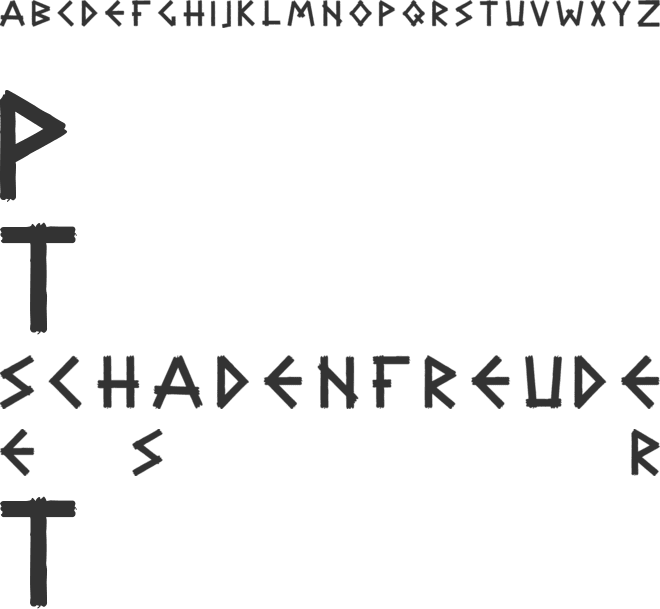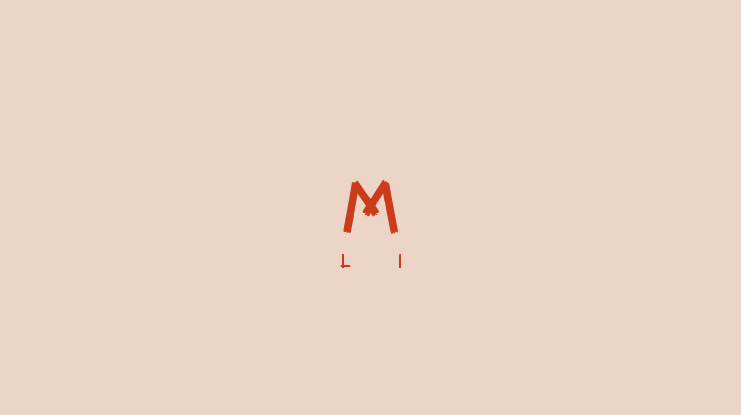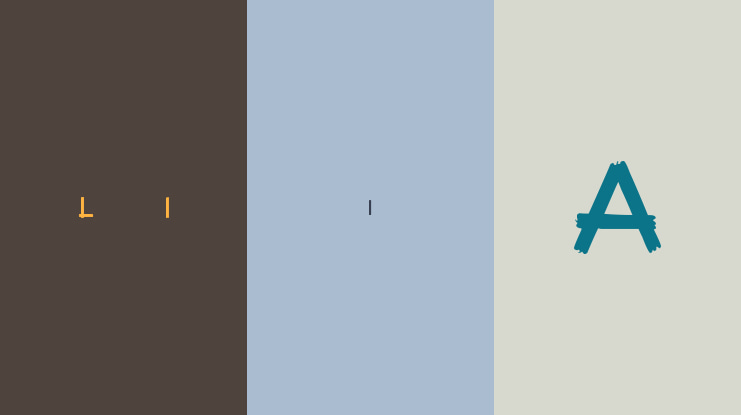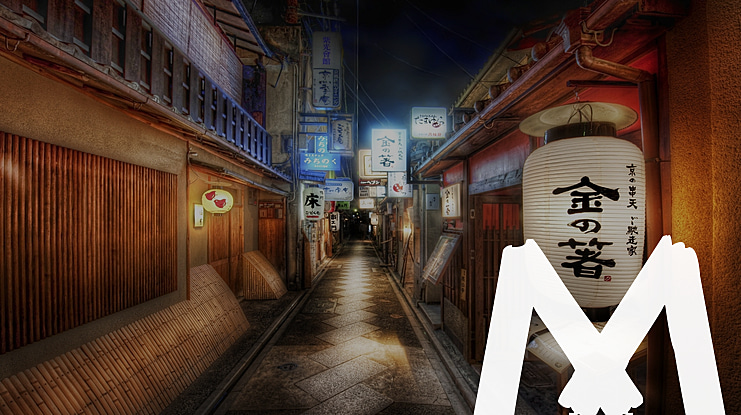
Madiba Font
The font comprises of Straight brush strokes which give a tribal look in general and the font is dedicated to Madiba a.k.a., Nelson Mandela.